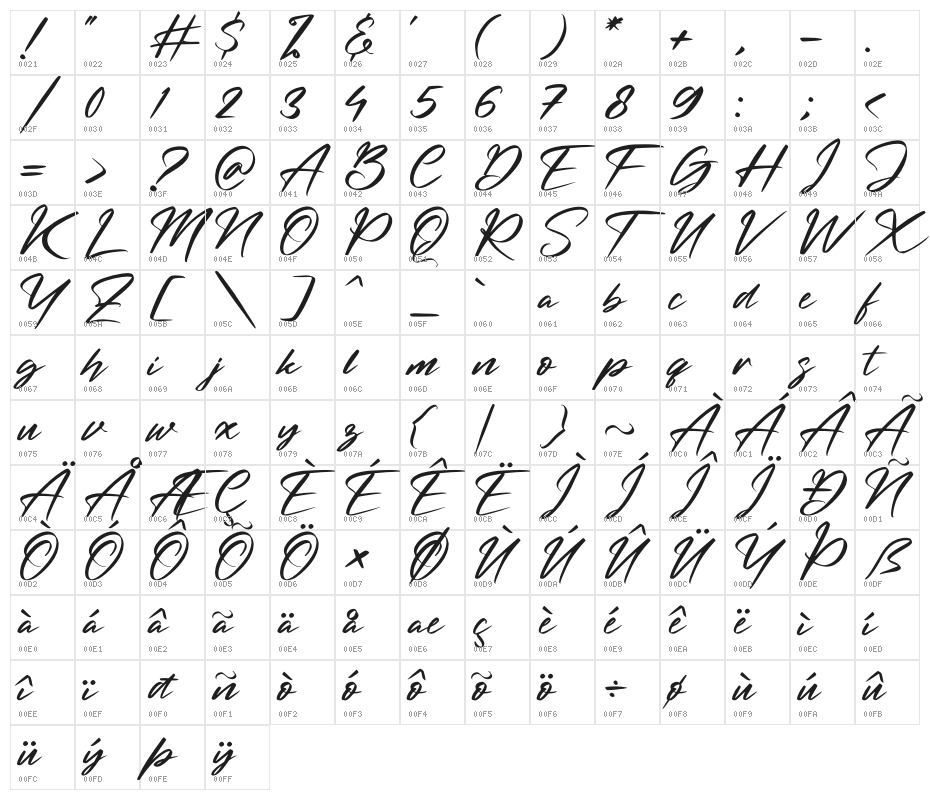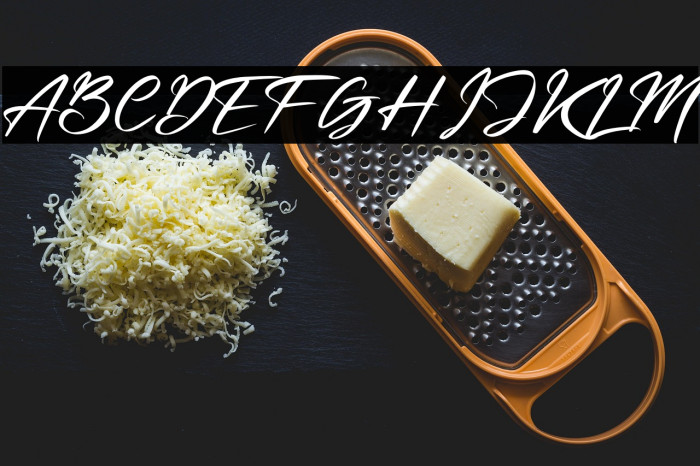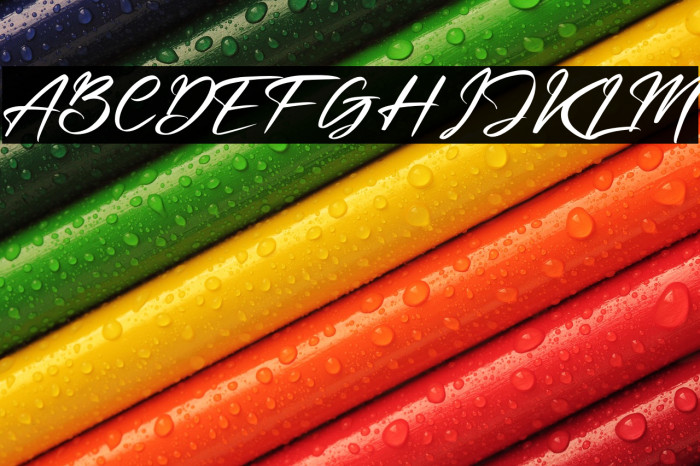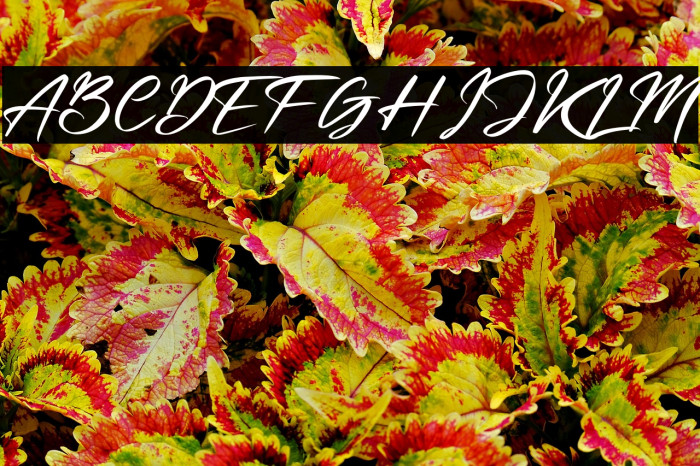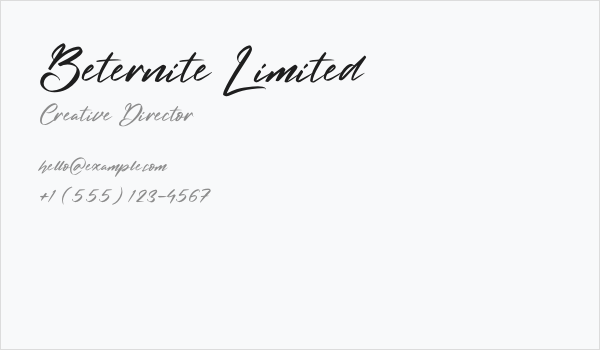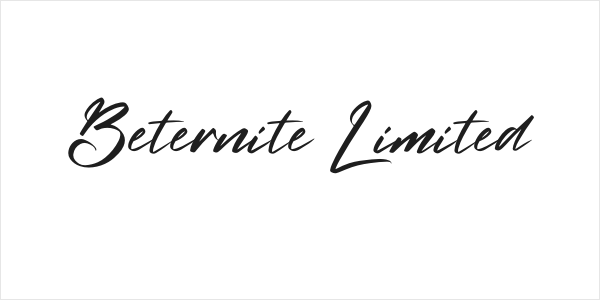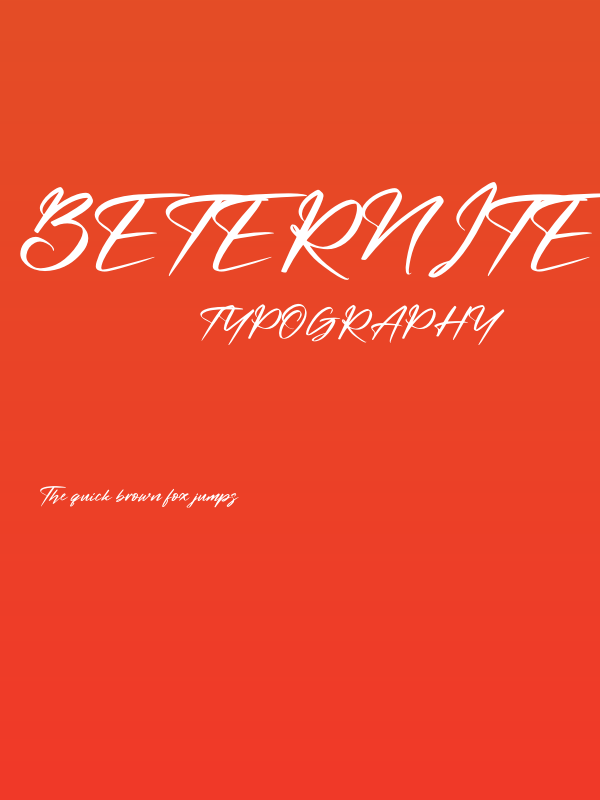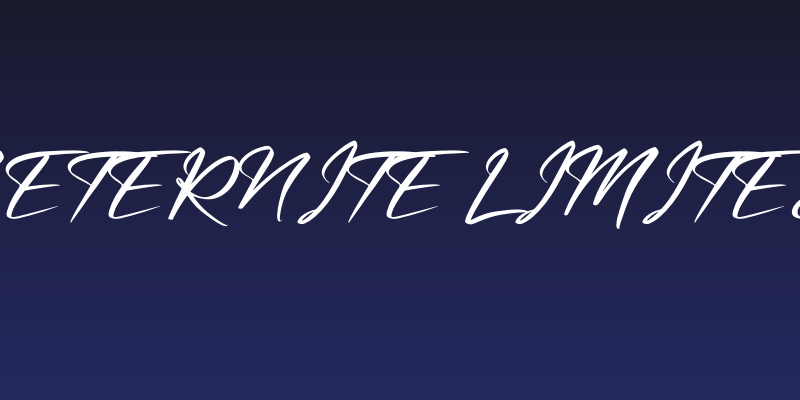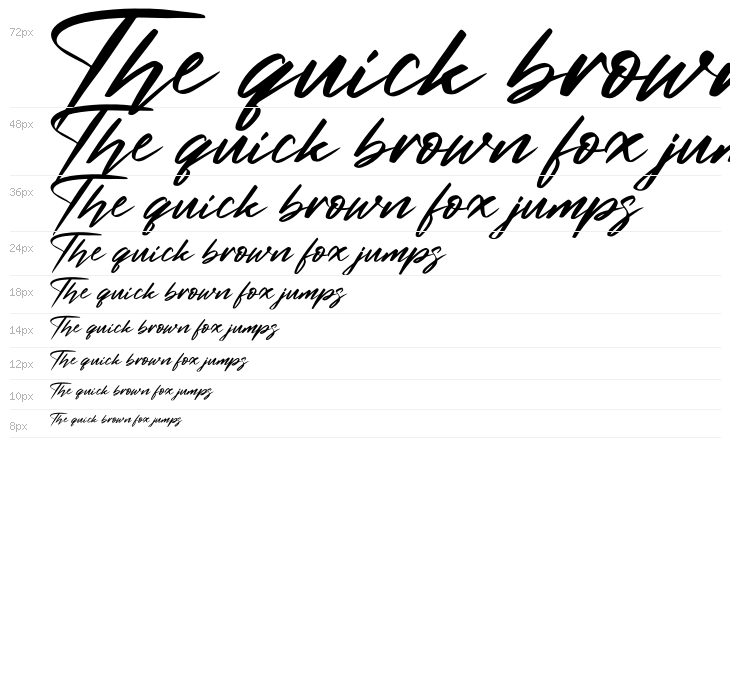
Beternite Limited Font
Beternite Limited Description
This font exhibits a dynamic and flowing script style, characterized by its elegant and cursive letterforms. The uppercase letters are bold and sweeping, with a sense of movement and grace. The lowercase letters maintain a consistent flow, enhancing readability while preserving the artistic flair. The numerals are distinct and maintain the script's fluidity, making them suitable for various design contexts. Special characters are well-integrated, adding versatility to the font's application. Overall, this font combines a sense of sophistication with a modern touch, making it ideal for creative and expressive projects.